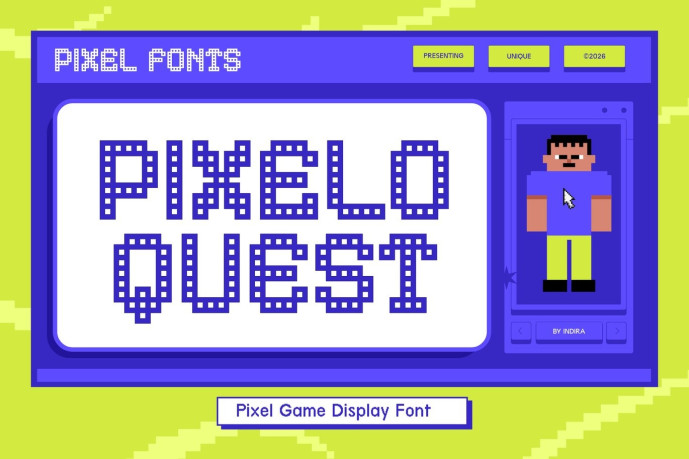
Pixel Quest Font
Pixel Quest Font is a pixel-based font designed to deliver a bold gaming identity with a strong retro arcade influence. Created with a unique dotted bitmap style, this display font captures the excitement of classic gaming worlds while bringing a fresh and energetic digital feel. Its playful yet structured form creates a distinctive visual rhythm that feels alive, making it an ideal tool for projects looking to stand out in the gaming and technology sectors.
Designed for game titles, game assets, user interface systems, and digital branding, Pixel Quest gives your design a powerful and immersive presence. The typeface stands out with its arcade-inspired layouts, coding visuals, and futuristic concepts that demand both clarity and character. Whether you’re developing an indie game, launching a video game brand, or creating bold promotional visuals, Pixel Quest delivers a striking pixel-based font experience that is both nostalgic and modern.